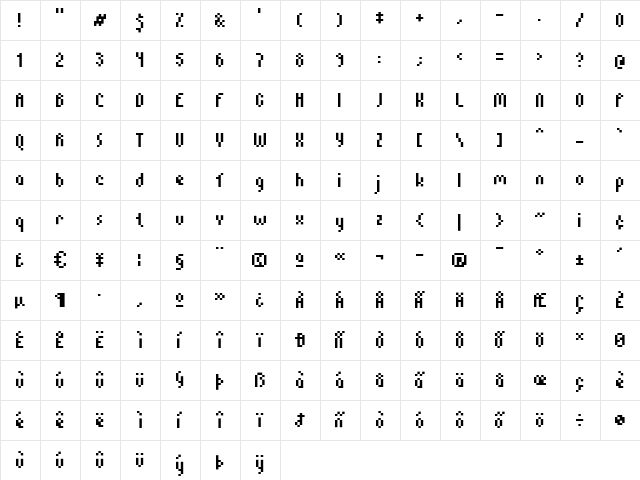
Myopic Regular
Design Context for Myopic Typeface
Myopic is a composed and adaptable typeface that performs quietly and consistently across a wide range of design contexts.